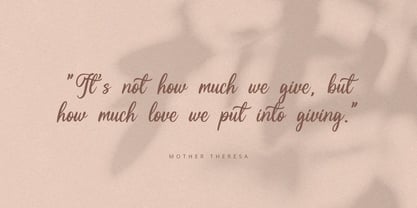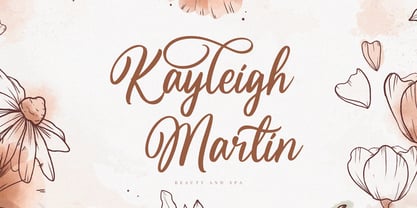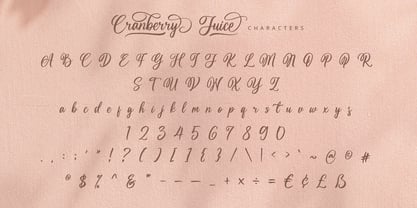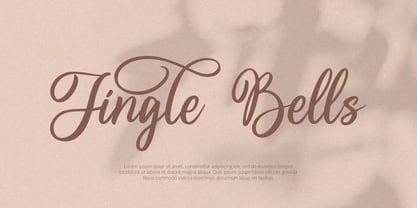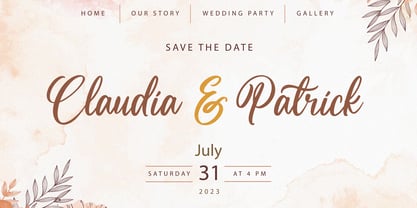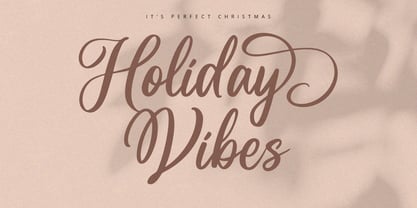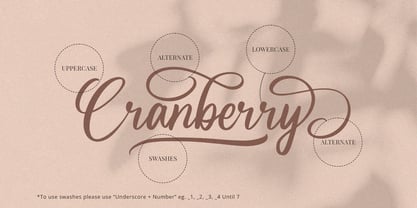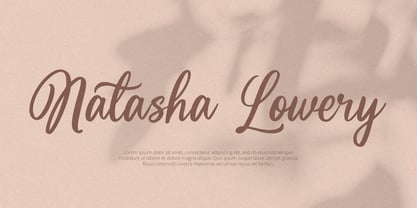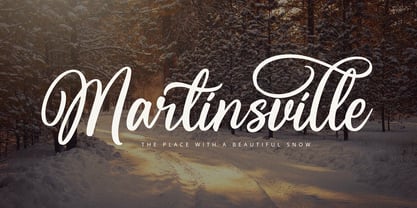
Cranberry Juice
The Cranberry Juice Font Family was designed by Nadia Salsabila and published by Alpaprana. Cranberry Juice contains 1 styles. More about this family
Cranberry Juice is a modern script font with elegant and unique style. It will be perfectly used for Branding, Logo Design, Lettering, Logotype, Clothing, Poster, magazine, packaging, posters, shopping bags, t-shirts, book covers, photography, special events and other design project.